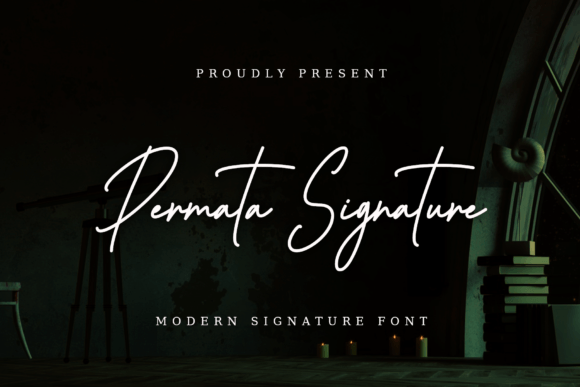
Step into the realm of exquisite artistry with Permata Signature Font – a captivating script font that exudes unparalleled grace and elegance. This modern masterpiece, hailing from the talented forge of AV Type, is a testament to the power of simplicity and refinement.
Crafted with the utmost care and attention to detail, Permata Signature Font boasts a unique charm that sets it apart from the mundane. Its fluid strokes and delicate curves dance across the page, evoking a sense of timeless beauty and understated luxury.
Indulge in the versatility of Permata Signature Font, a font that effortlessly adapts to a myriad of creative endeavors. Whether you're designing a poster that demands attention, crafting a logo that radiates sophistication, or simply adding a touch of personal flair to your t-shirt designs, Permata Signature Font is your perfect companion.
Unleash your creativity and let Permata Signature Font transform your designs into works of art. With its ability to elevate any project, this font is the ultimate choice for discerning designers seeking distinction and originality.
So, embark on this creative journey with Permata Signature Font today and witness the magic unfold as your designs blossom into masterpieces that captivate and inspire.